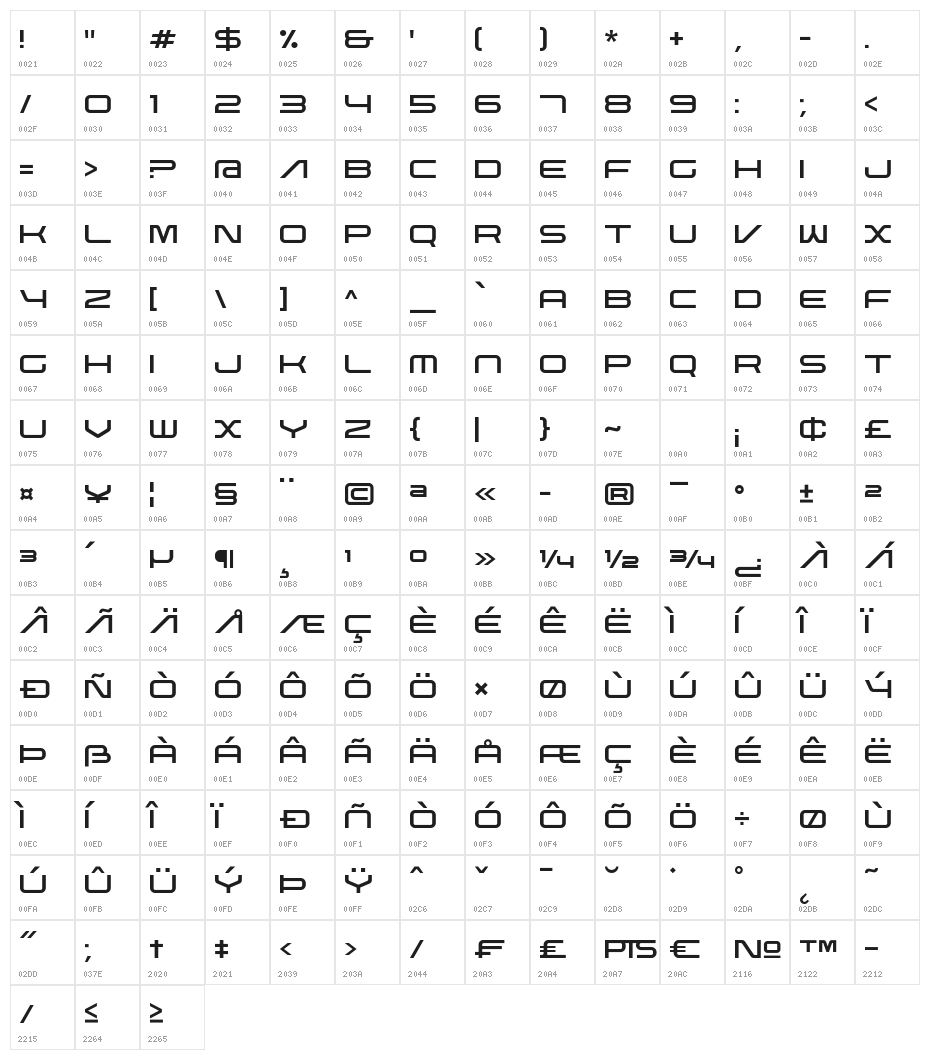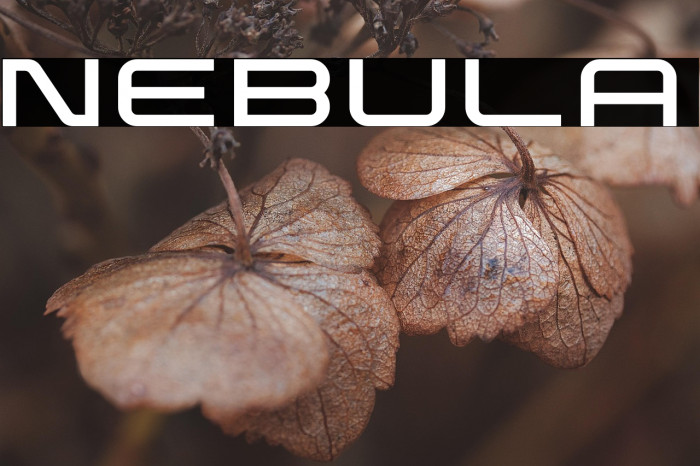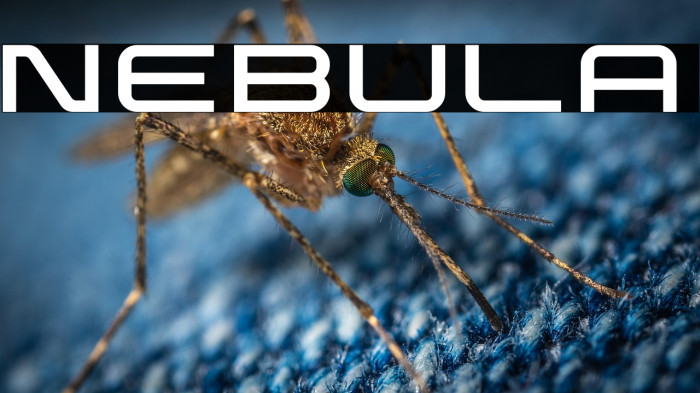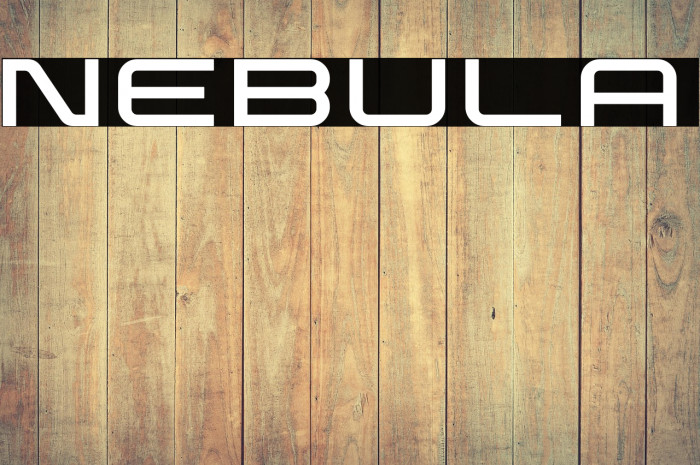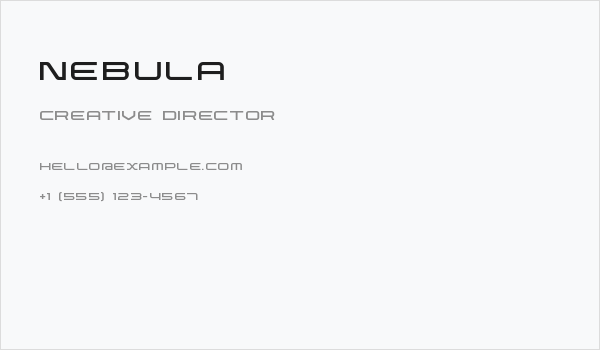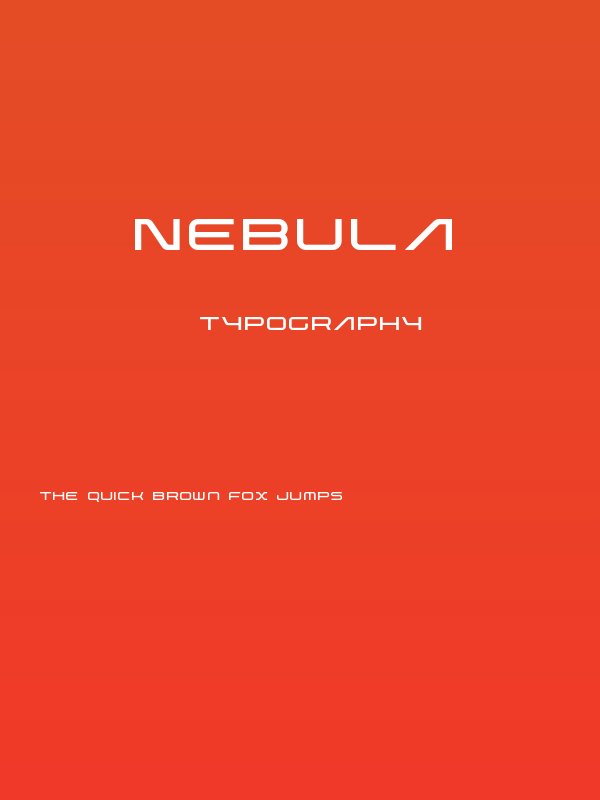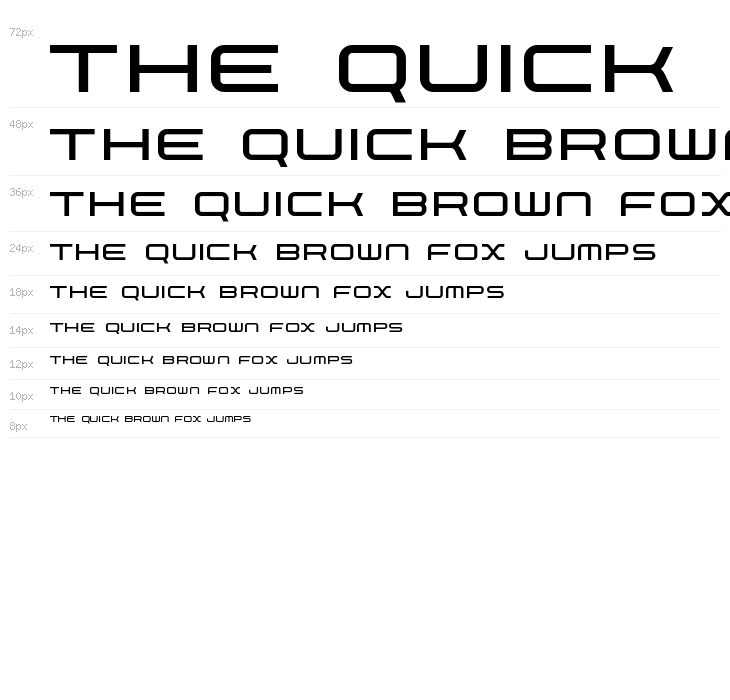
Nebula Font
Nebula Description
This font features a futuristic and sleek design, characterized by its geometric and angular letterforms. The uppercase and lowercase letters maintain a consistent style, with a focus on clean lines and minimalistic curves. The numbers and special characters follow the same design principles, ensuring uniformity across all glyphs. The font's modern aesthetic makes it suitable for technology-related projects, branding, and digital interfaces. Its distinct appearance is both eye-catching and functional, providing clarity and readability.
| Use Case | Headlines, Logos, Digital interfaces |
| Proposed Projects | Ideal for technology branding, digital interfaces, sci-fi themes, and modern advertising. |